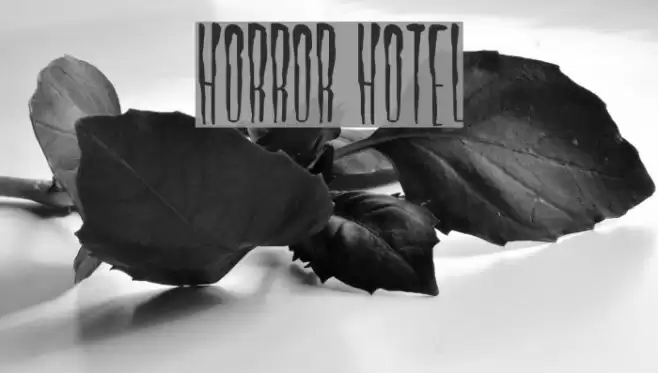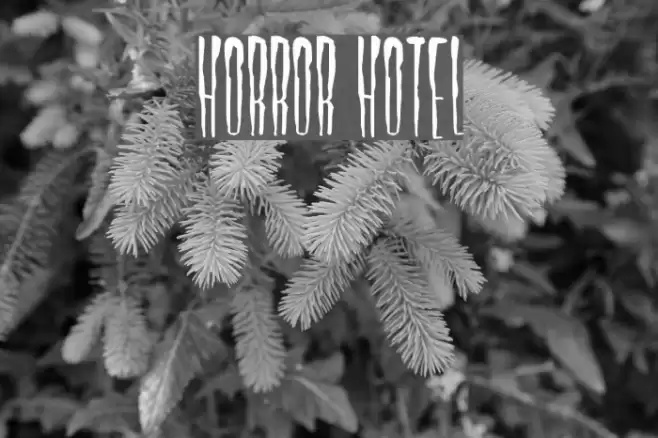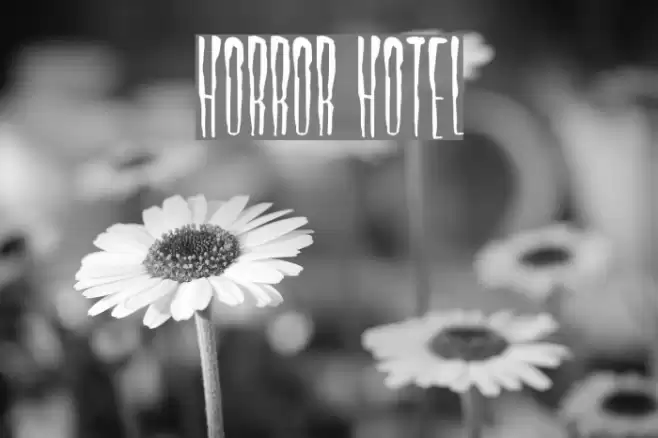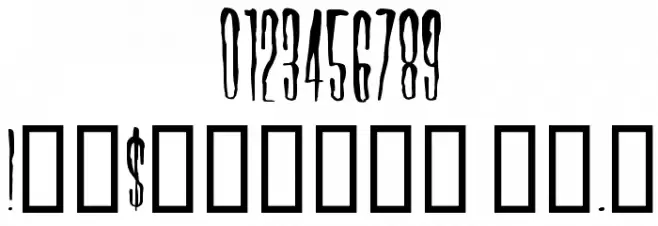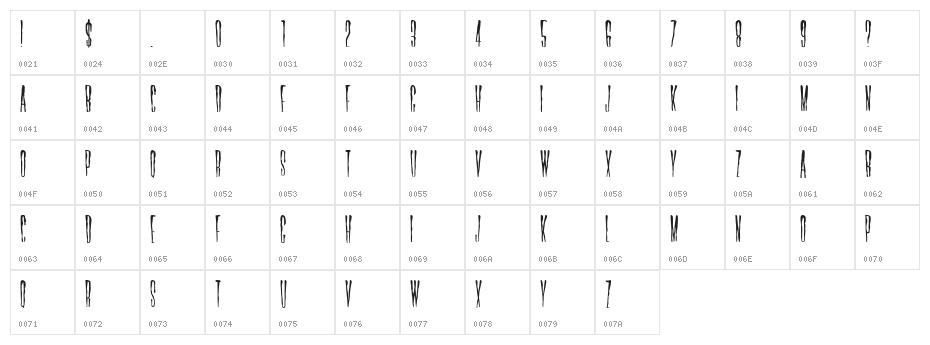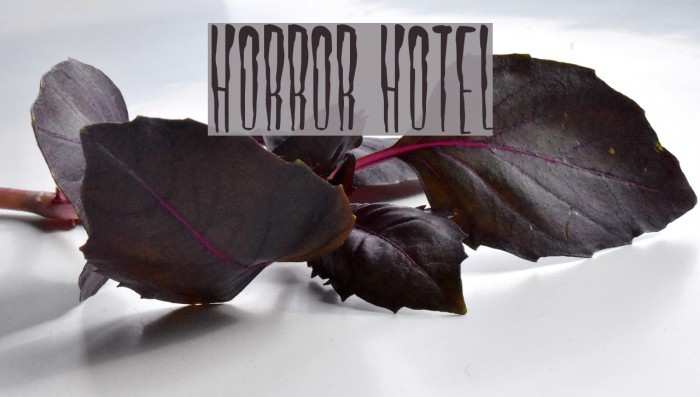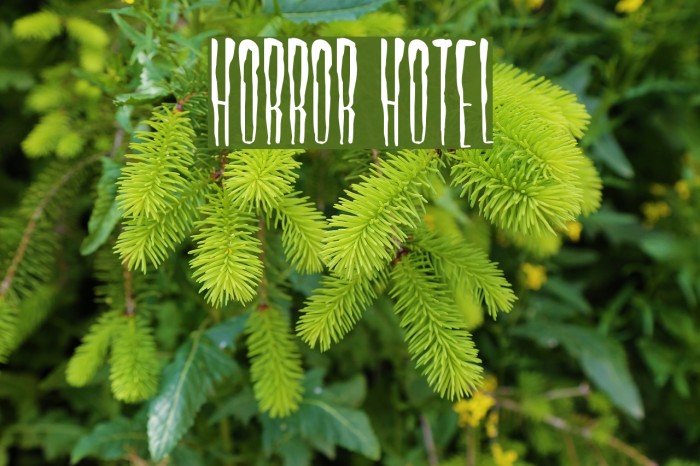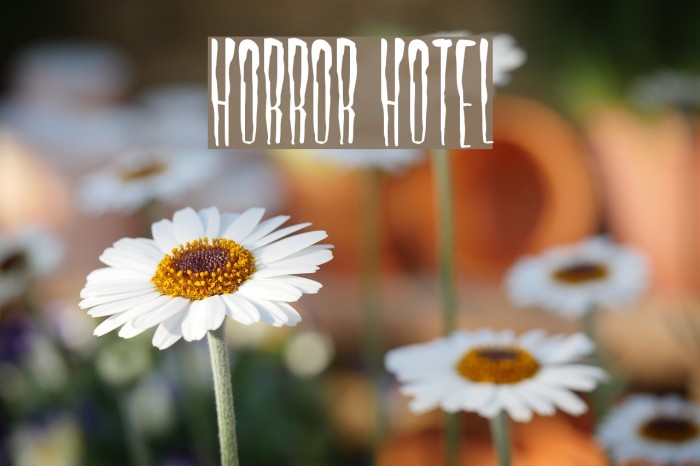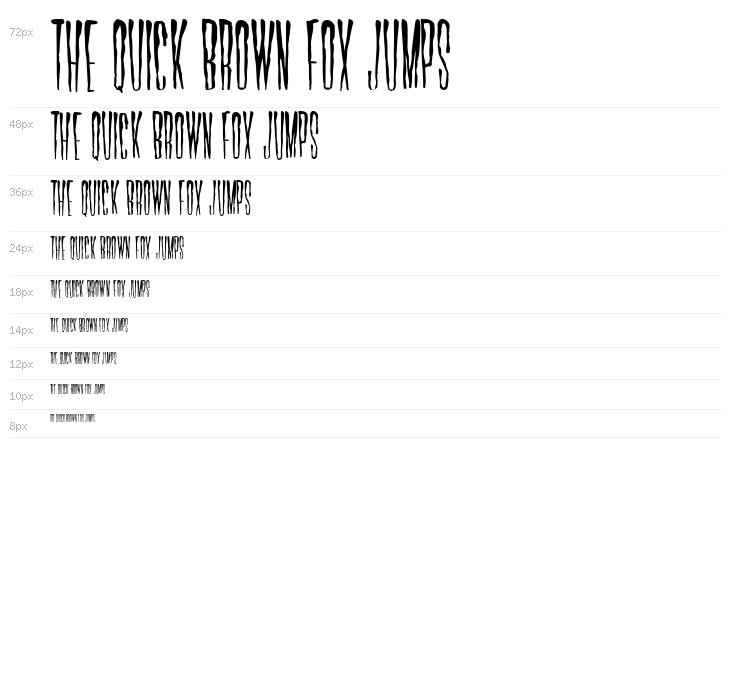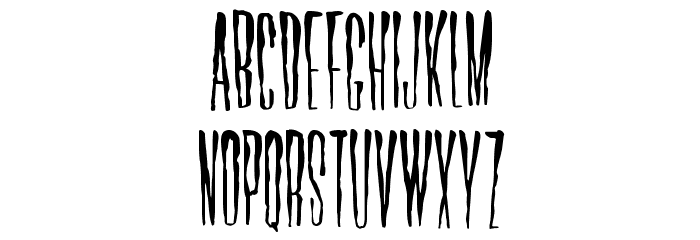
Horror Hotel Font
Horror Hotel Description
This font features a distinctive, eerie style with elongated and irregular letterforms, reminiscent of classic horror movie posters. The characters have a jagged, dripping appearance, giving them a sense of movement and unease. The uppercase and lowercase letters maintain a consistent height, enhancing the unsettling effect. Numbers and special characters follow the same design principles, ensuring a cohesive look across all glyphs. The font's unique style makes it ideal for creating a spooky or mysterious atmosphere.
A spooky, elongated font with a dripping, horror-inspired design from Decorative fonts.
- Proposed Projects: Perfect for Halloween-themed designs, horror movie posters, haunted house flyers, and spooky event invitations.
- Character Spacing: Tight